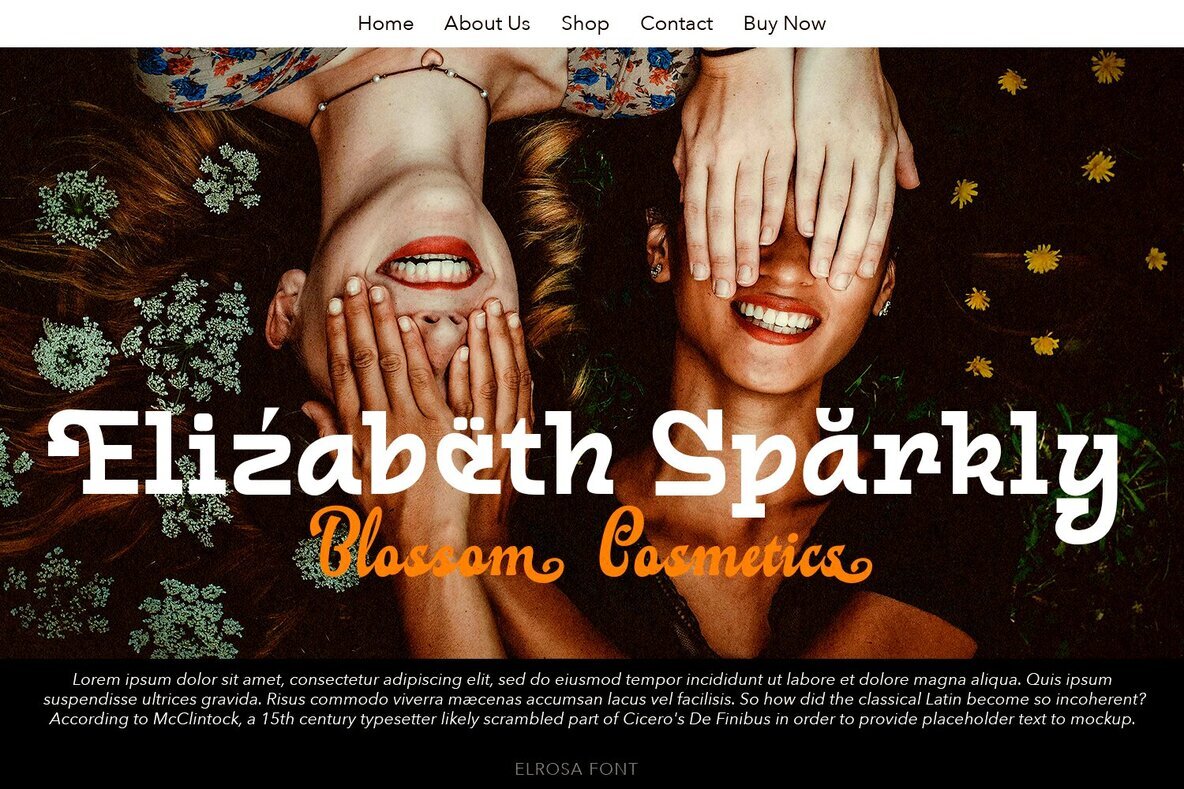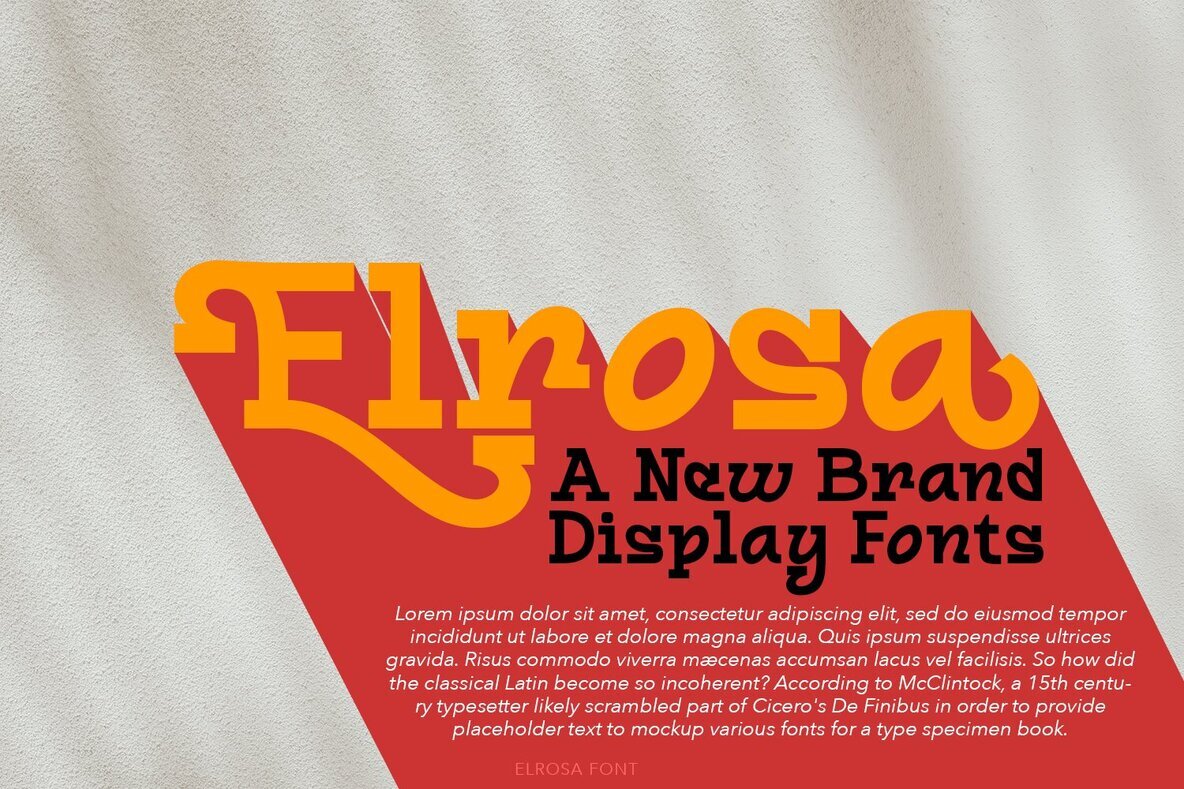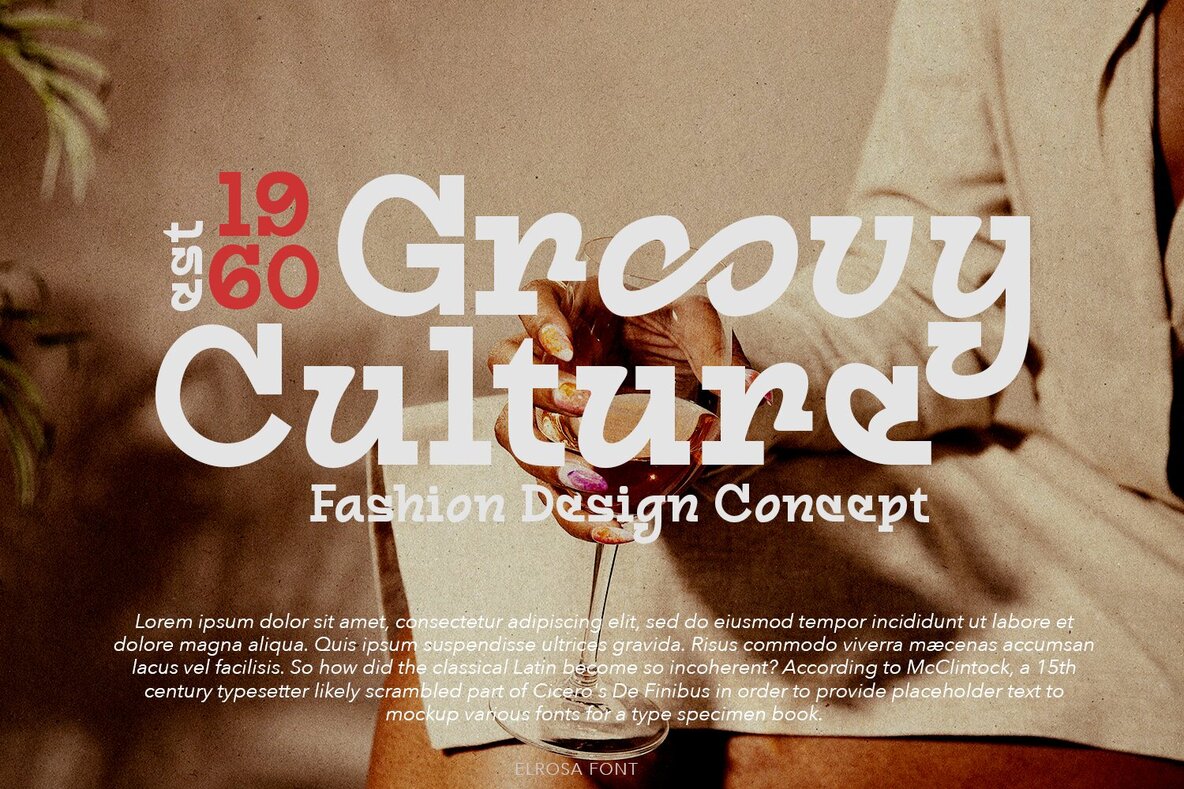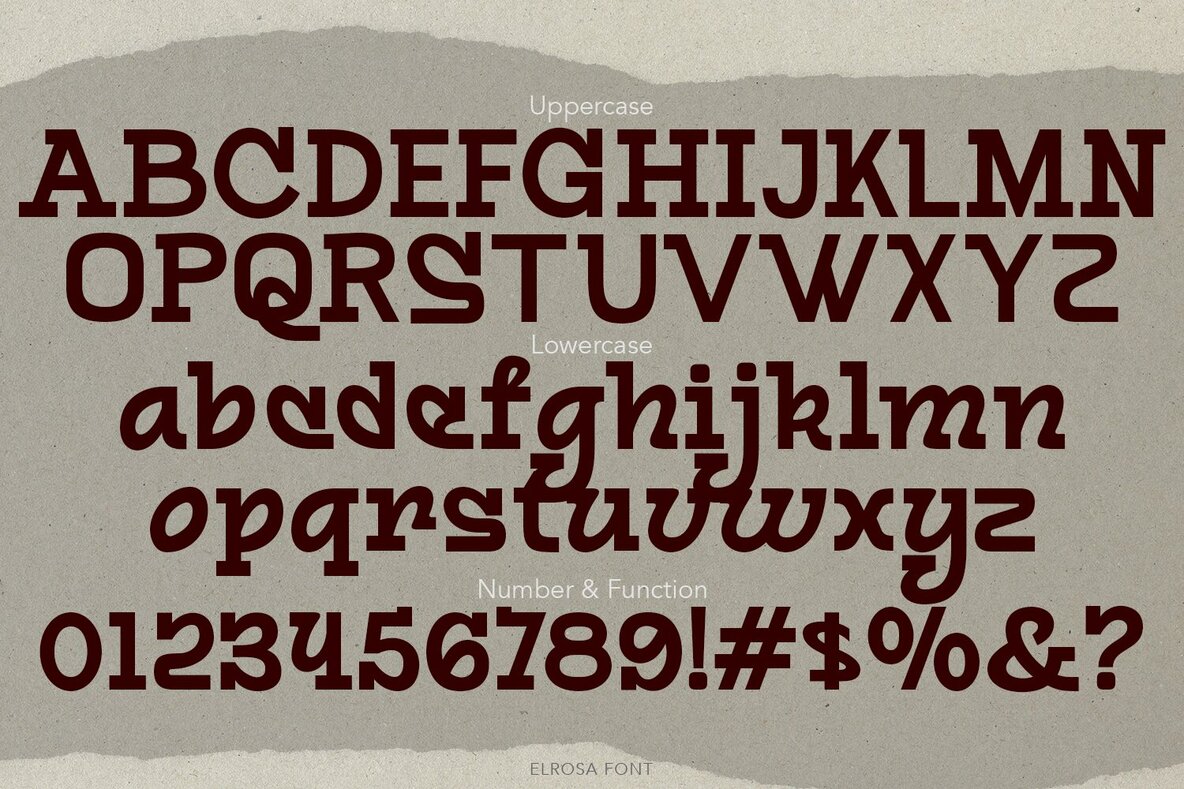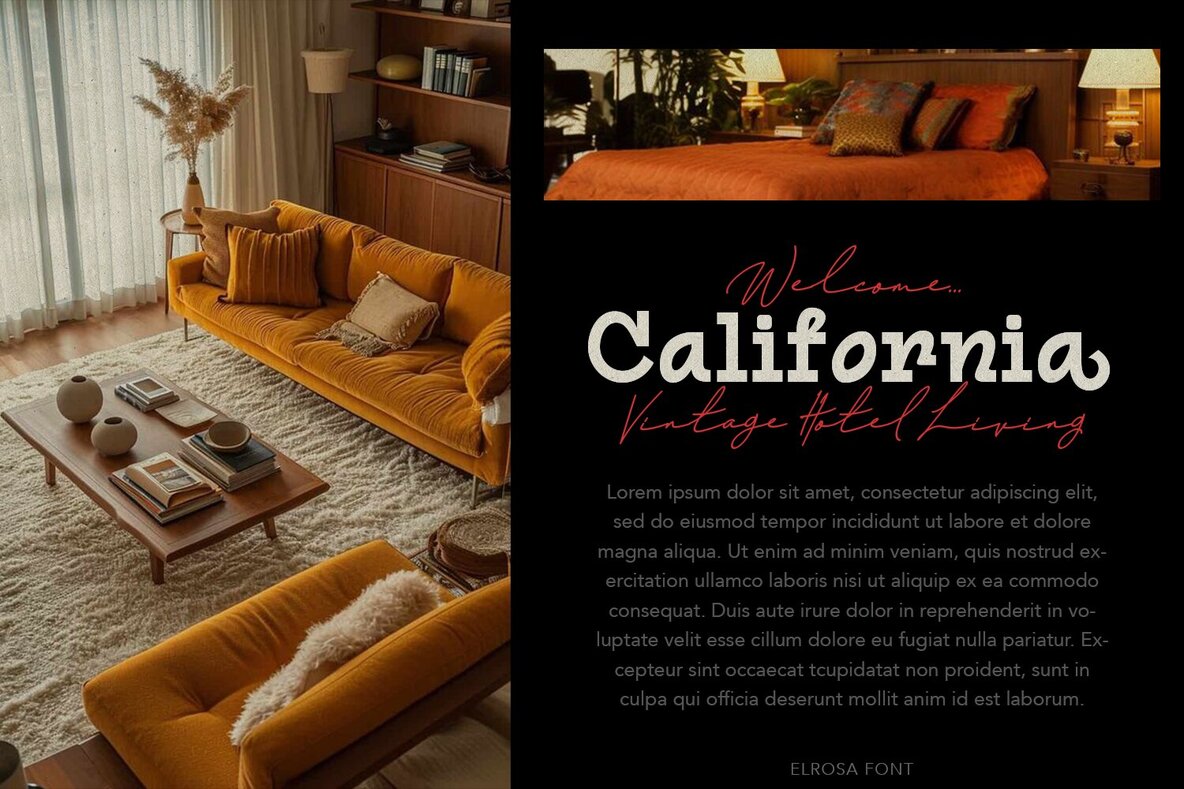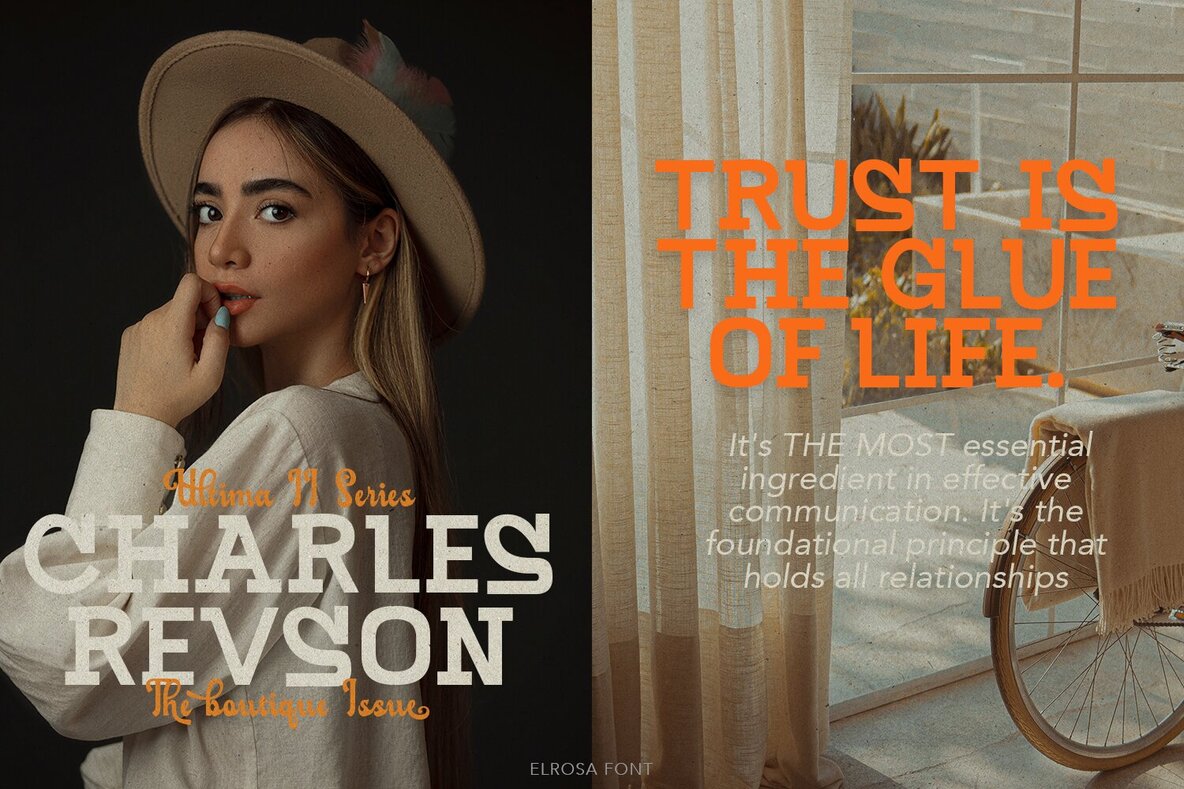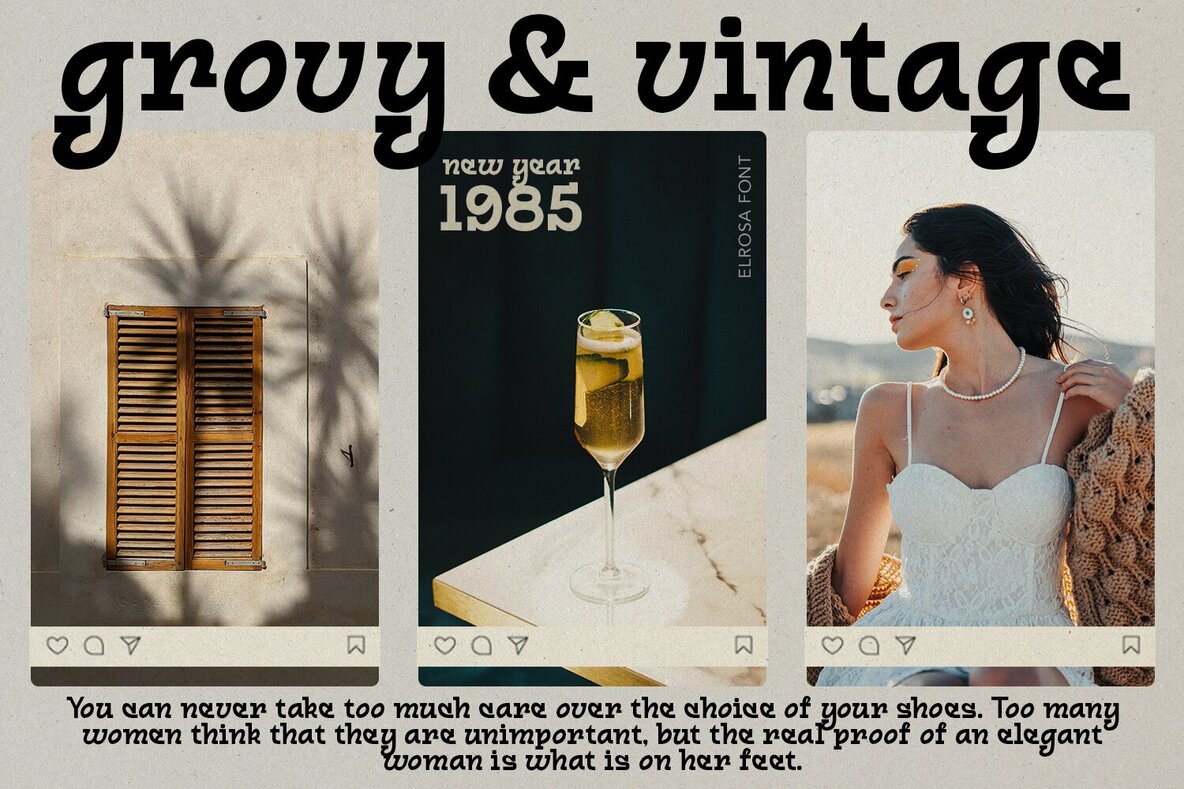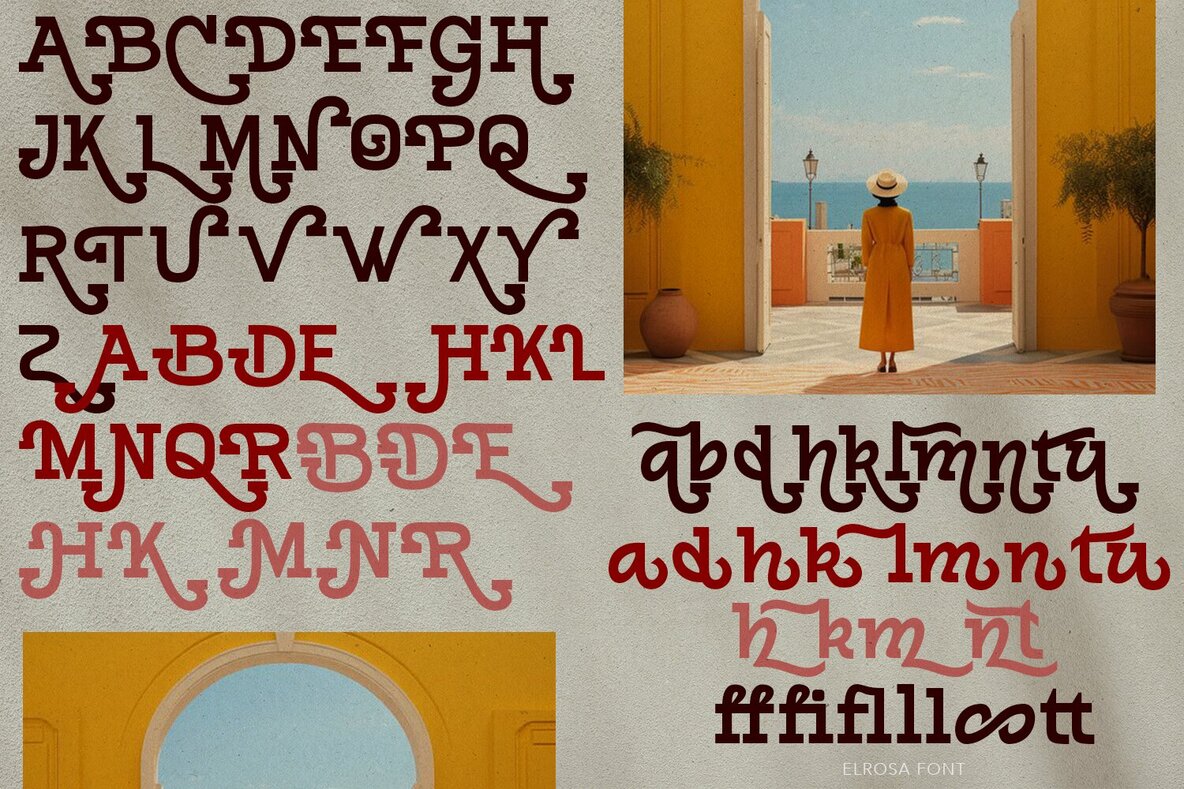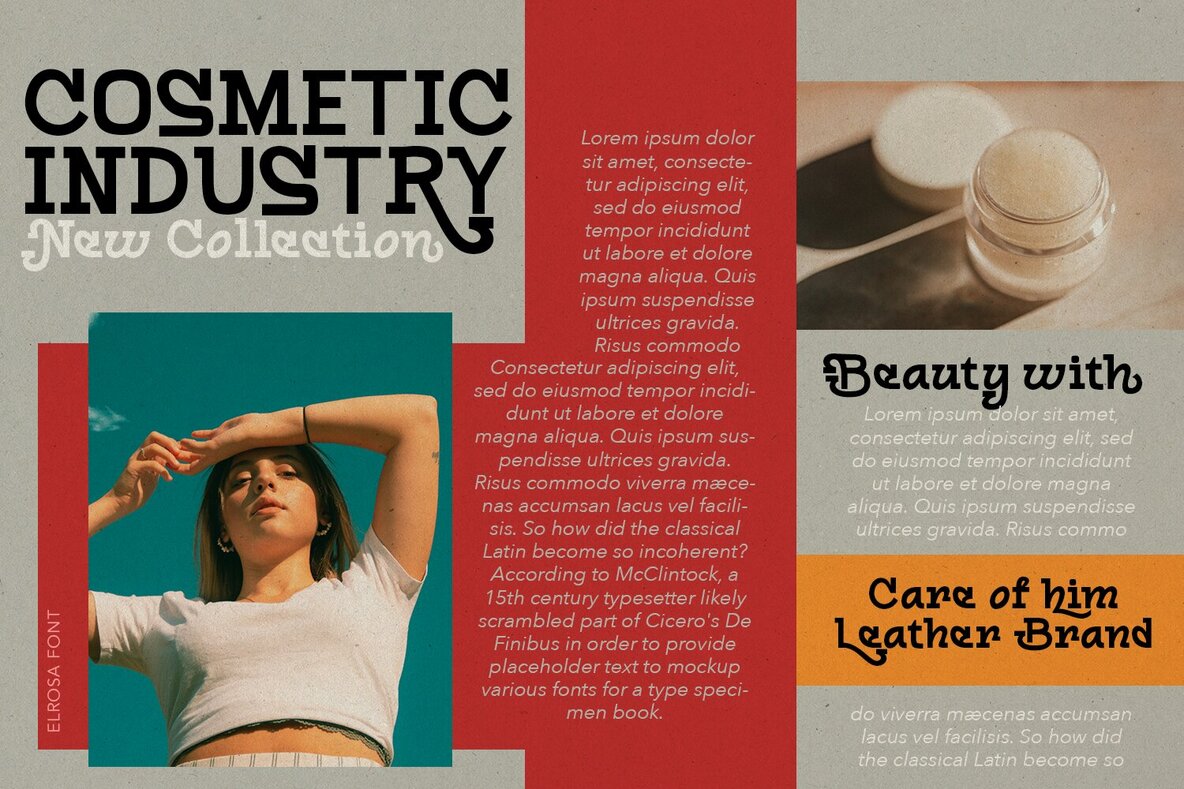
Elrosa Font
Elrosa
Inspired by industrial display monospaced typefaces. Making it particularly appealing for various applications. Is perfect for modern project design, delivering a minimalist, simple and sophisticated look that captures the essence of modernity.